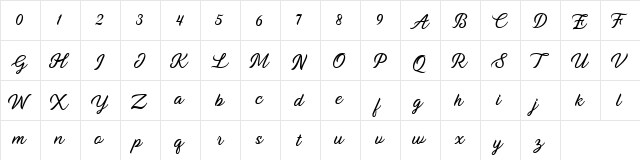
Marsttar Demo Regular
| Foundry | Digitype Studio |
| Designer | Nickyart | Yusuf niki syahroni |
Design Context for Marsttar Demo Typeface
Marsttar Demo is a composed and adaptable typeface that performs quietly and consistently across a wide range of design contexts.